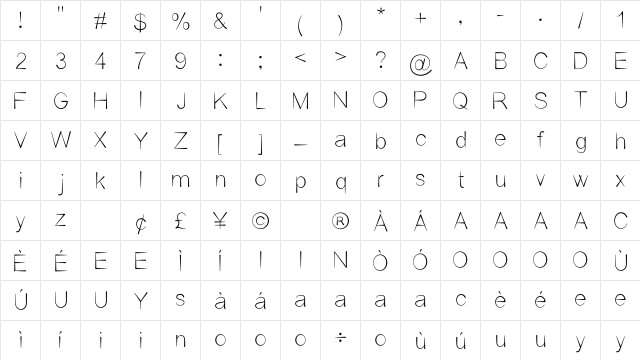
Unisono INK Regular
| Designer | Piero Unisono |
Design Context for Unisono INK Typeface
Unisono INK is a composed and adaptable typeface that performs quietly and consistently across a wide range of design contexts.